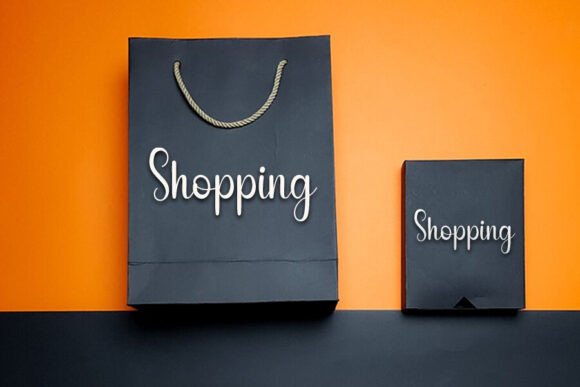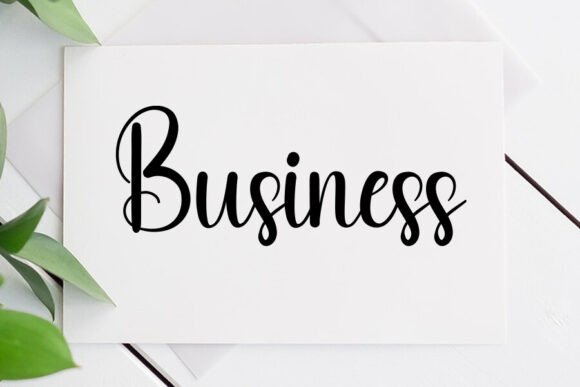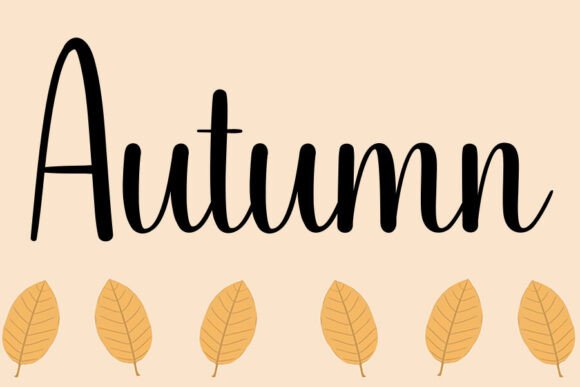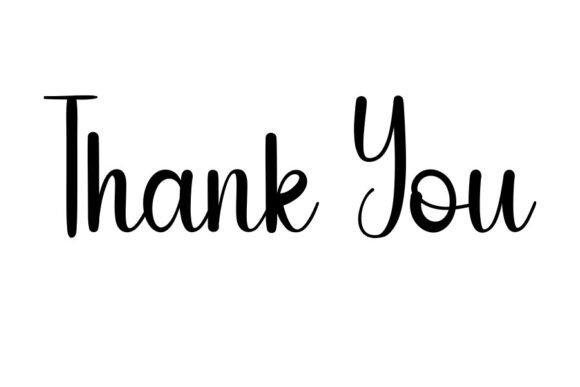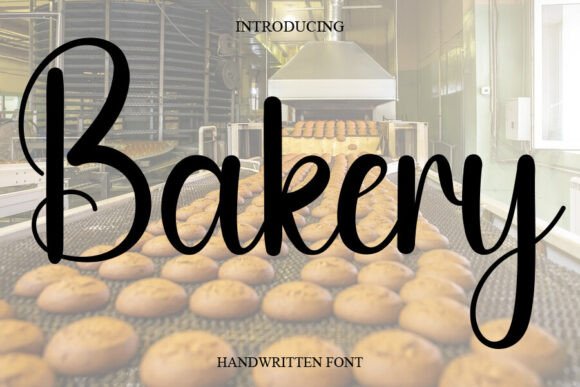
Bakery Font: The Sweet and Elegant Choice for Designers and Crafters
Are you looking for a font that can add a touch of elegance and whimsy to your designs? Look no further than Bakery Font, a sweet and cursive handwritten font that’s perfect for a variety of projects. In this article, we’ll explore the features and benefits of Bakery Font, and show you how to make the most of this beautiful font in your designs.
What is Bakery Font?
Bakery Font is a gentle and elegant handwritten font that’s designed to add a touch of romance and whimsy to your designs. With its flowing curves and sweet letterforms, this font is perfect for creating beautiful and eye-catching designs that will capture the attention of your audience. Whether you’re a designer, crafter, or DIY enthusiast, Bakery Font is a great choice for any project that requires a touch of elegance and sophistication.
Features of Bakery Font
Bakery Font has a number of features that make it a great choice for designers and crafters. Some of its key features include:
- Sweet and cursive letterforms: Bakery Font features beautiful, flowing letterforms that are perfect for creating elegant and sophisticated designs.
- Handwritten feel: This font has a warm and personal feel that’s perfect for creating designs that feel friendly and approachable.
- Versatile: Bakery Font can be used for a wide range of projects, from branding and logos to wedding invitations and greeting cards.
- Elegant and casual: This font strikes the perfect balance between elegance and casualness, making it perfect for designs that need to feel sophisticated but not too formal.
Uses for Bakery Font
Bakery Font is a versatile font that can be used for a wide range of projects. Here are some ideas to get you started:
- Branding and logos: Use Bakery Font to create a beautiful and memorable logo for your business or brand.
- Wedding invitations and things: This font is perfect for creating elegant and romantic wedding invitations, place cards, and other stationery.
- Greeting cards: Use Bakery Font to create beautiful and heartfelt greeting cards for special occasions.
- Fashion and lookbooks: This font is perfect for creating stylish and sophisticated fashion designs and lookbooks.
- Marketing and promotion: Use Bakery Font to create eye-catching and effective marketing materials, such as brochures and flyers.
Tips for Using Bakery Font
Here are some tips for getting the most out of Bakery Font:
- Use it sparingly: While Bakery Font is beautiful and elegant, it can be overwhelming if used too much. Use it sparingly to create a focal point in your design.
- Pair it with other fonts: Bakery Font pairs well with a variety of other fonts, including sans-serif fonts and serif fonts. Experiment with different pairings to find the one that works best for your design.
- Experiment with colors: Bakery Font looks beautiful in a variety of colors, from soft pastels to rich jewel tones. Experiment with different colors to find the one that works best for your design.
Bakery Font is a beautiful and elegant handwritten font that’s perfect for designers and crafters who want to add a touch of whimsy and romance to their designs. With its sweet letterforms and flowing curves, this font is perfect for creating beautiful and eye-catching designs that will capture the attention of your audience. Whether you’re creating branding and logos, wedding invitations, or greeting cards, Bakery Font is a great choice. So why not give it a try and see how it can elevate your designs?